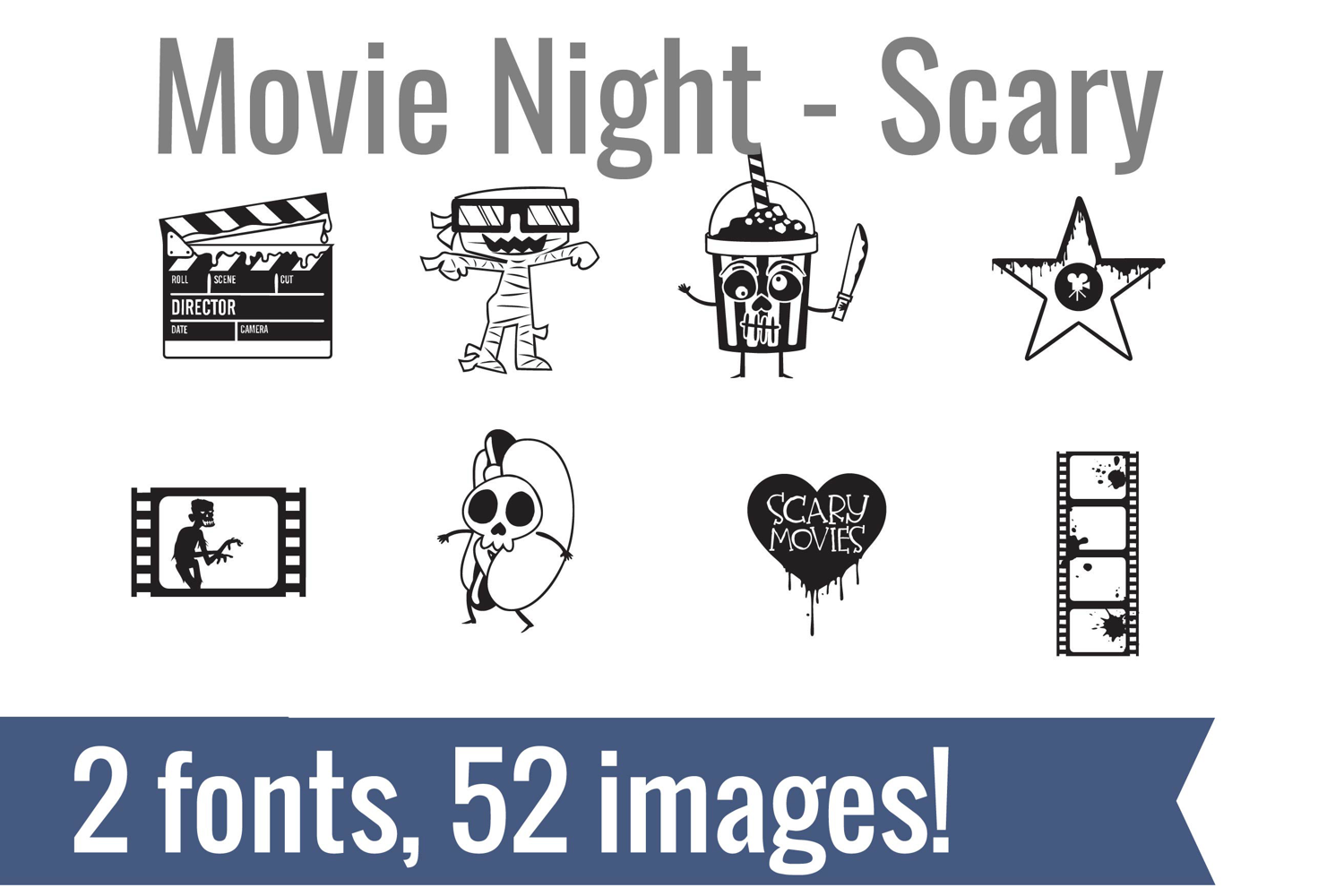
Movie Night Dingbats
Unlock endless creativity with two perfectly coordinated fonts! There are two dingbat fonts in this bundle, one featuring the best movie night imagery and the features scary movie imagery.
Tired of spending hours searching for the perfect icons and graphics? Our dingbat fonts put dozens of cohesive, scalable designs at your fingertips. Simply install the font and type a letter to produce a pre-made image. From charming seasonal icons for holiday cards to intricate frames for your invitations, these fonts let you create stunning designs for vinyl cutting, paper crafts, planners, and more.